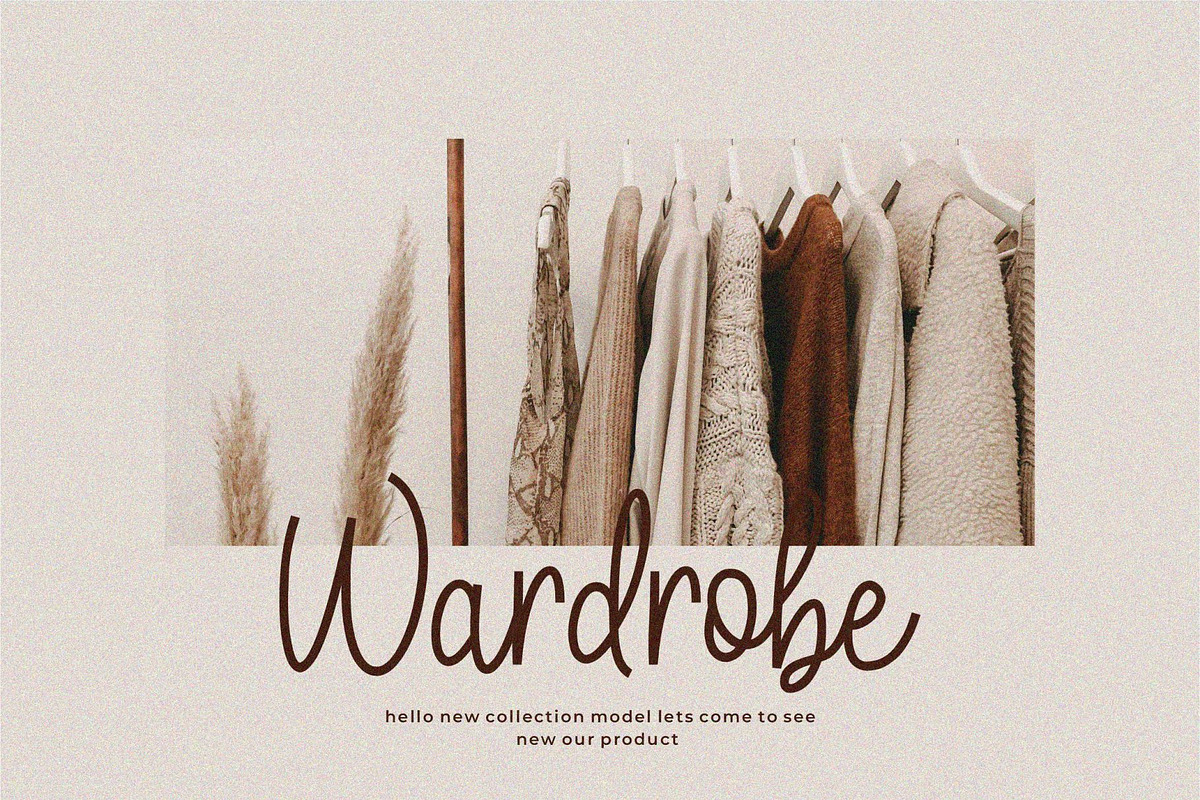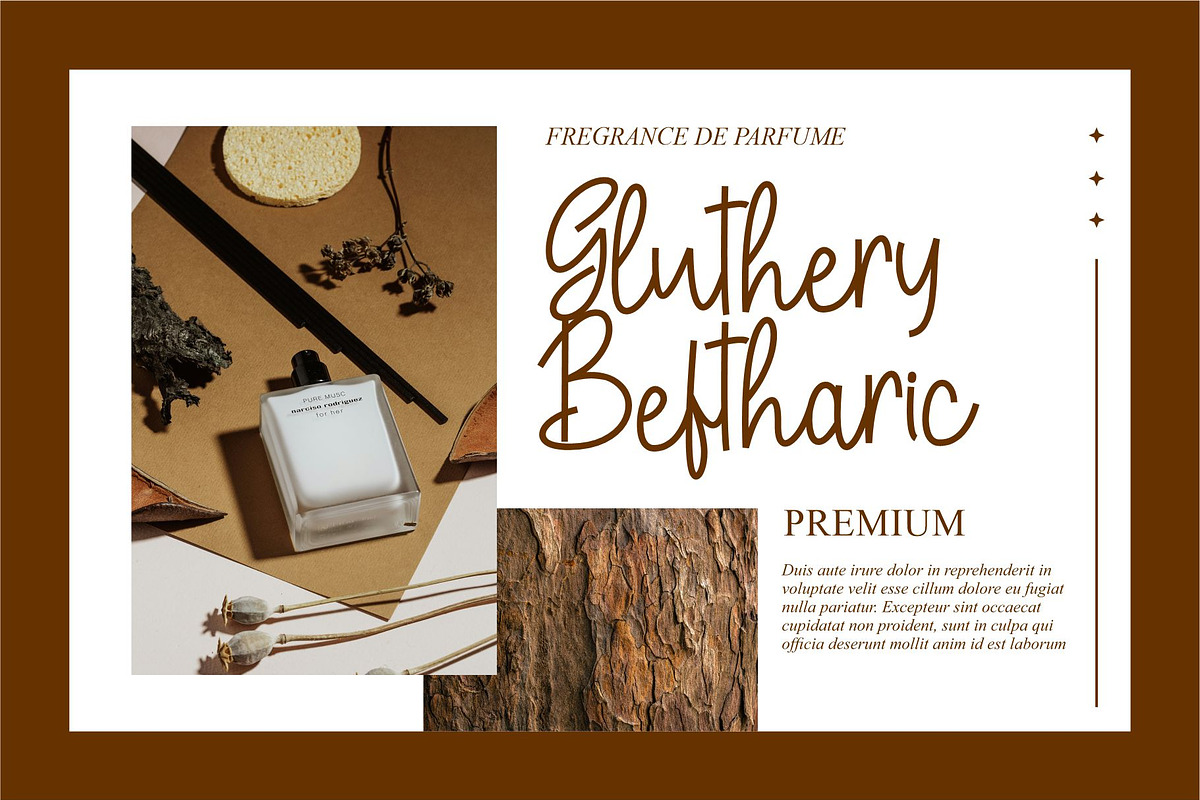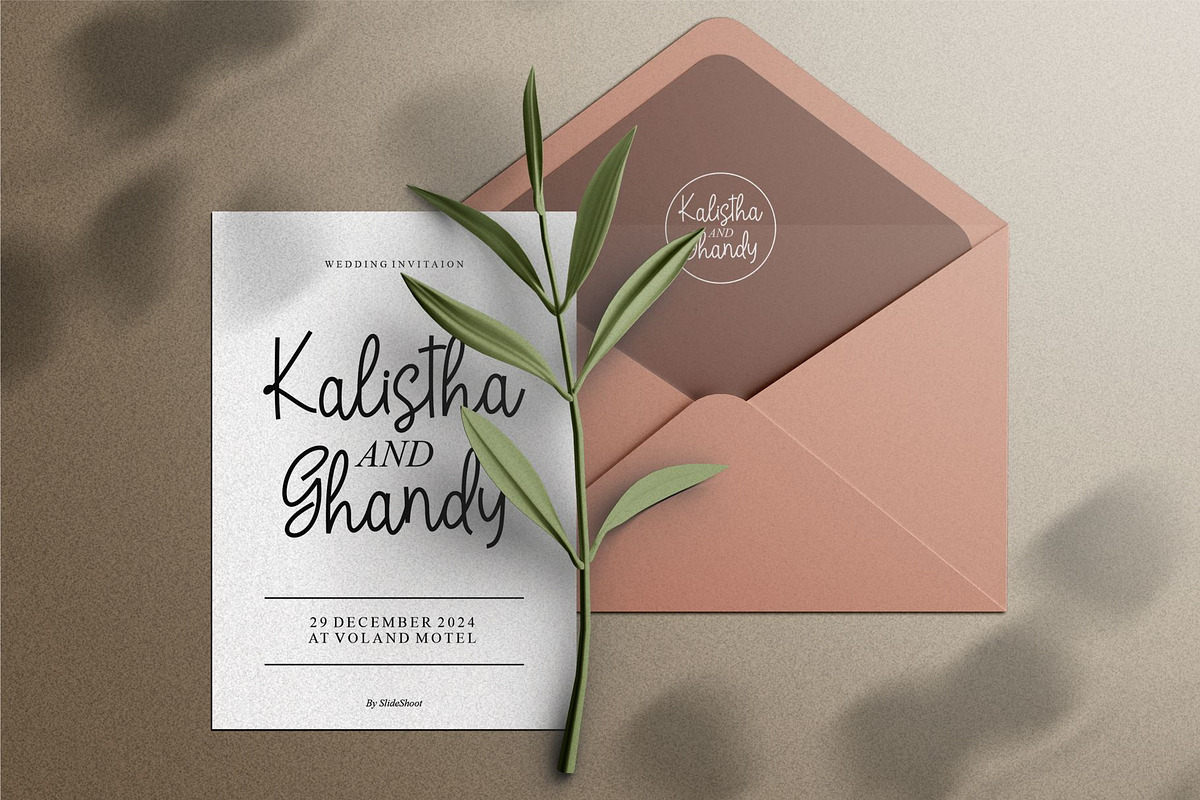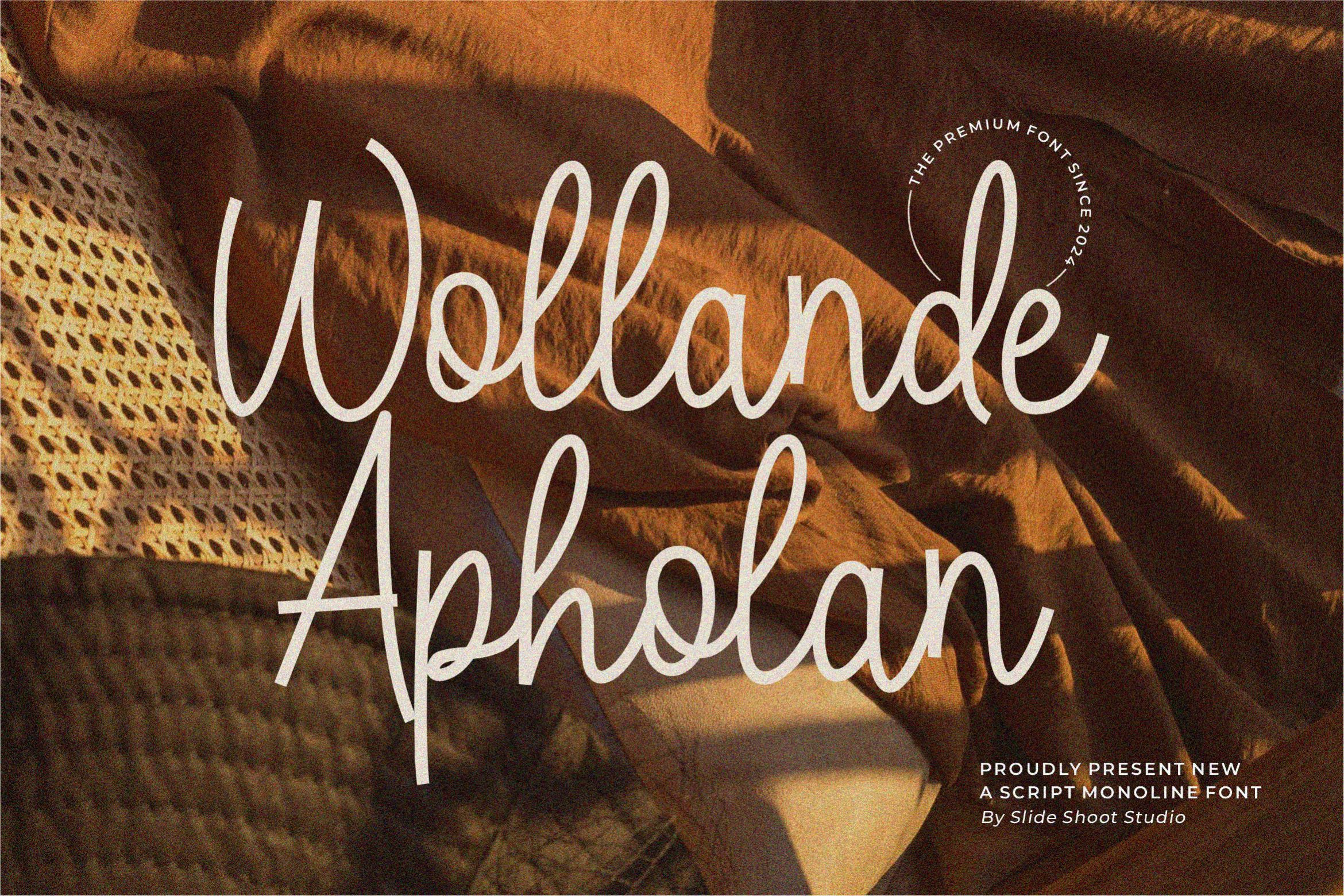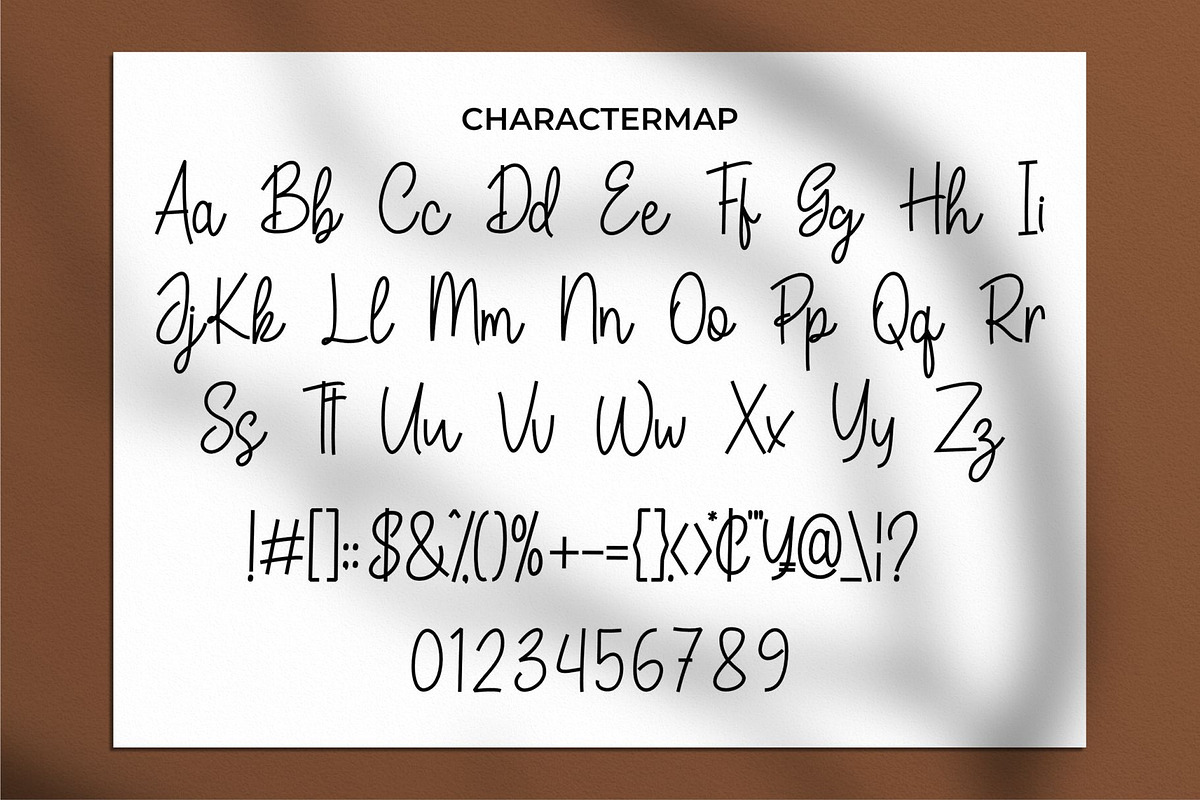
Wollande Apholan || Script Font
Hello everyone, I would like to introduce Wollande Apholan a handwritten font with a casual and elegant style.
Wollande Apholan can also be used for a variety of projects such as branding, labels, photography, invitations, stationery, wedding designs, social media posts, advertising, product packaging, product design and other awesome projects.